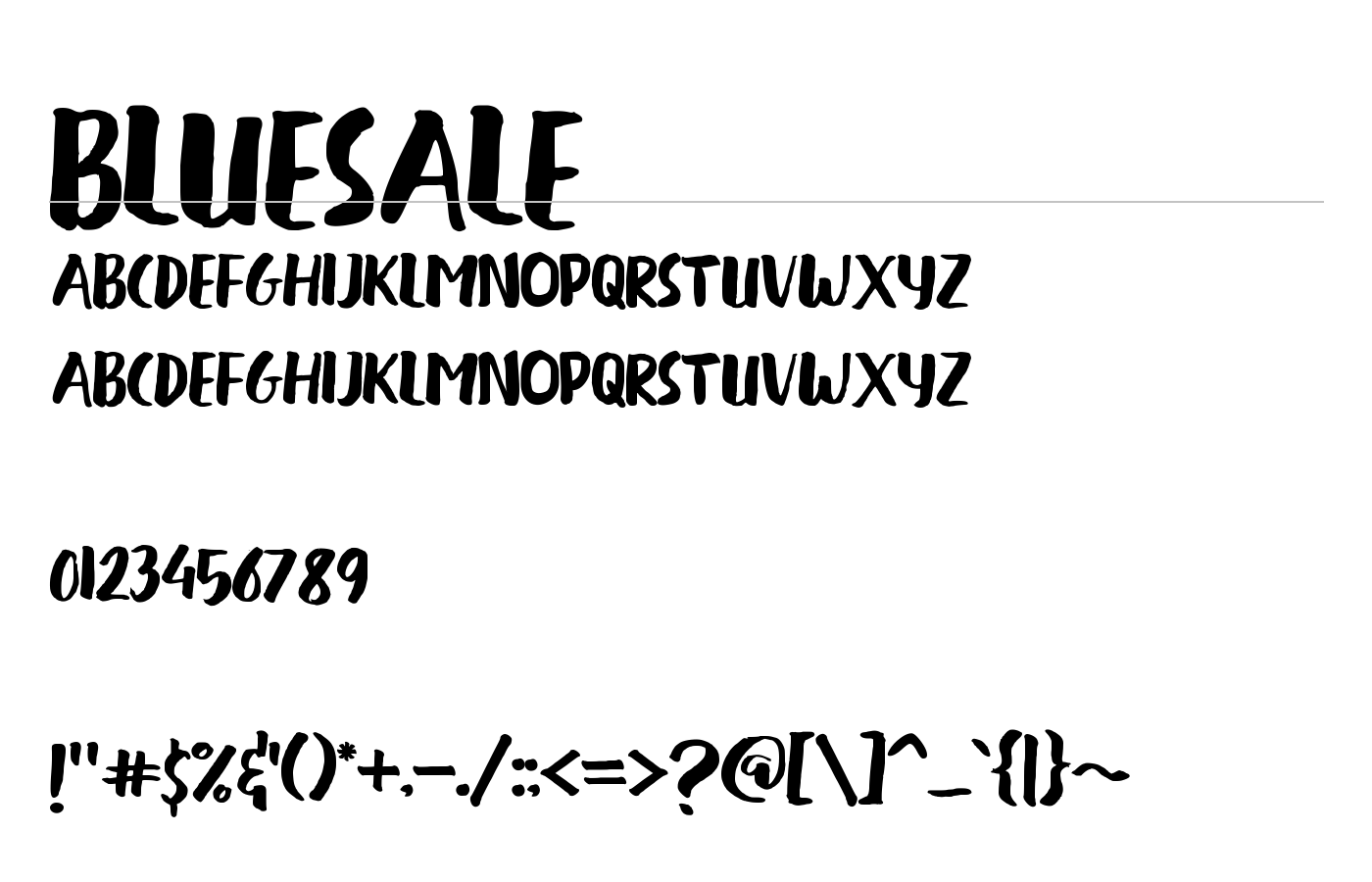
BLUESALE is a bold, hand-painted style sans serif font with a casual, artistic feel. Its uneven strokes and organic shapes give it a lively, expressive personality, making it ideal for creative projects and branding that wants to convey energy and uniqueness. This font works well for logos, posters, and headlines where a friendly, handwritten vibe is desired.
BLUESALE Font